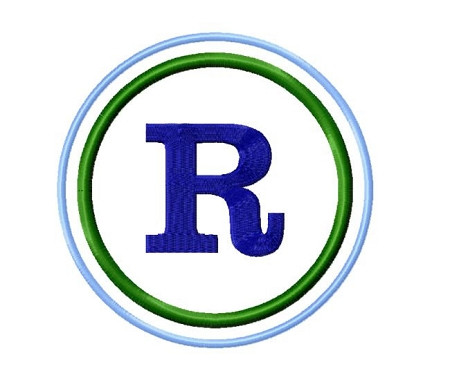
Double Circle Initial Monogram Machine Embroidery Font
This font comes with upper case letters inside a double circle. The two circles are satin stitched and the letters are fill stitching or column fill stitching. The sizes included are: